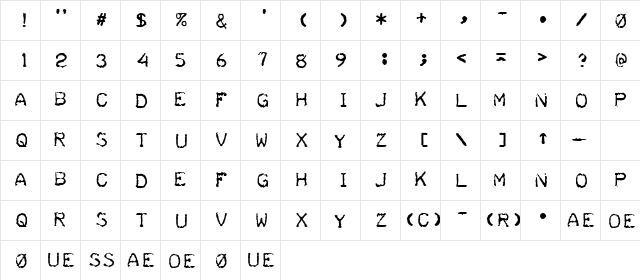
Teleprinter Intalic
Design Context for Teleprinter Typeface
Teleprinter is a composed and adaptable typeface that performs quietly and consistently across a wide range of design contexts.